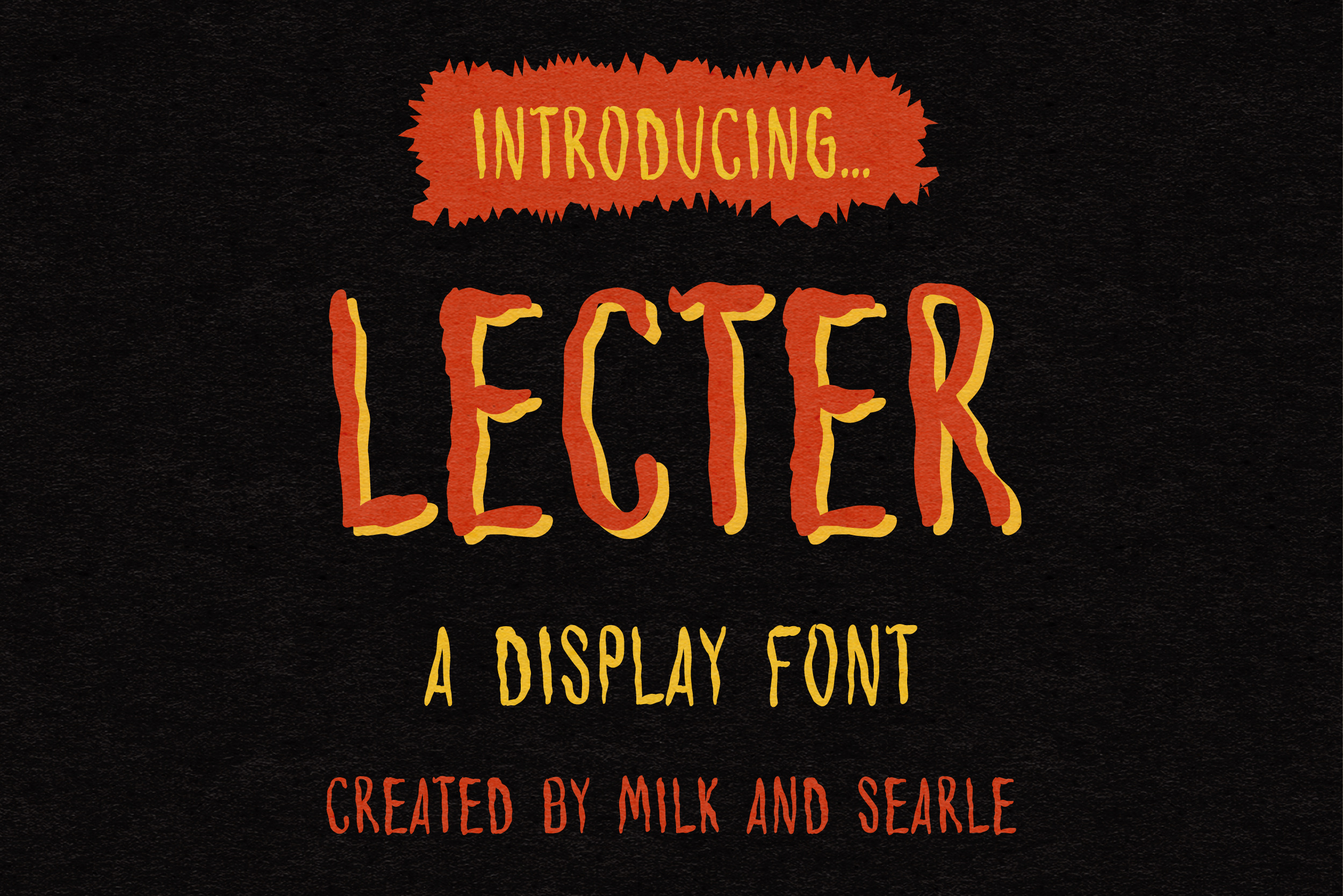
Lecter Font - By Milk and Searle
Spooky up your designs with my "Lecter" font. This font is inspired by retro Halloween ads and marketing materials.
Full A-Z uppercase alphabet, numbers and basic punctuation are included.